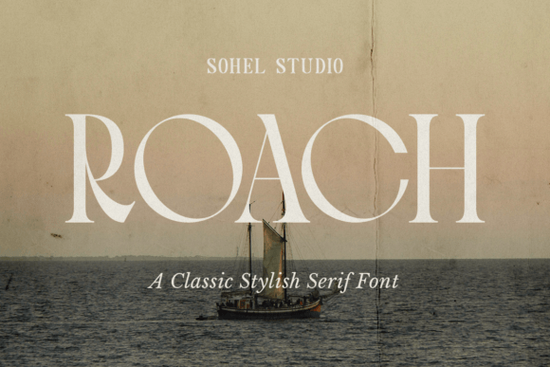
If you're looking for a serif font that blends vintage charm with modern refinement, Roach Font is worth a closer look. Designed with graceful strokes and subtle art deco influences, Roach brings a sense of timeless sophistication to everything from branding projects to poster designs. It’s especially well-suited for creators who want their work to feel both classic and contemporary without leaning too heavily into either extreme.
What makes Roach stand out is its balance. The letterforms are thin and elegant, yet they hold up beautifully in both print and digital formats. Whether you’re crafting wedding invitations, designing labels for a boutique product line, or laying out a cinematic-style movie poster, this font adds a layer of polish that feels intentional, not overdone.
When should you use Roach Font?
Roach shines in design contexts where elegance matters but it’s surprisingly versatile. Here are a few scenarios where it really works:
- Vintage or historical themes: Its art deco roots make it ideal for projects inspired by the 1920s through mid-century aesthetics.
- Nautical or coastal branding: Think boutique seaside shops, yacht clubs, or travel journals the refined lines pair naturally with maritime motifs.
- Luxury product packaging: Perfume bottles, artisanal soaps, or premium coffee bags benefit from Roach’s understated class.
- Film and editorial design: Movie title sequences, magazine headlines, or book covers gain visual weight without appearing cluttered.
Because of its clean structure and moderate contrast, Roach also scales well. It remains legible at smaller sizes while still making a statement when blown up large.
How does Roach compare to other serif fonts?
Many classic serifs like those found in the Varsity College Sport Bundle lean toward bold, athletic, or academic vibes. Roach takes a different path. Instead of strong slab serifs or heavy ink traps, it uses delicate terminals and open counters to create airiness and flow. This makes it a better fit for projects that call for subtlety rather than impact.
That said, Roach isn’t fragile. Its construction holds up in real-world applications: screen printing, laser engraving, vinyl cutting, and more. Crafters and print-on-demand sellers will appreciate how cleanly it cuts and prints, even with intricate details.
Is Roach Font right for your small business?
If your brand values heritage, craftsmanship, or quiet confidence, Roach could be a natural typographic match. It avoids trendy quirks, which means it won’t feel dated in a year or two. Small businesses in hospitality, fashion, publishing, or specialty retail often find that fonts like Roach communicate quality without shouting.
One practical tip: pair Roach with a neutral sans-serif for body text or supporting copy. A clean typeface like Helvetica, Inter, or even a minimalist geometric sans helps Roach’s ornamental qualities stand out without overwhelming the layout.
Final thoughts before you download
Roach isn’t trying to be flashy. It’s a workhorse serif with personality, built for designers who value restraint and detail. If your project needs a font that whispers “refined” rather than “loud,” this one deserves a spot in your toolkit.
Quick checklist before using Roach Font:
- ✅ Test readability at your final output size especially for small print.
- ✅ Pair it with ample whitespace and simple layouts to let its details breathe.
- ✅ Avoid using it for long paragraphs; it’s best as a headline or accent font.